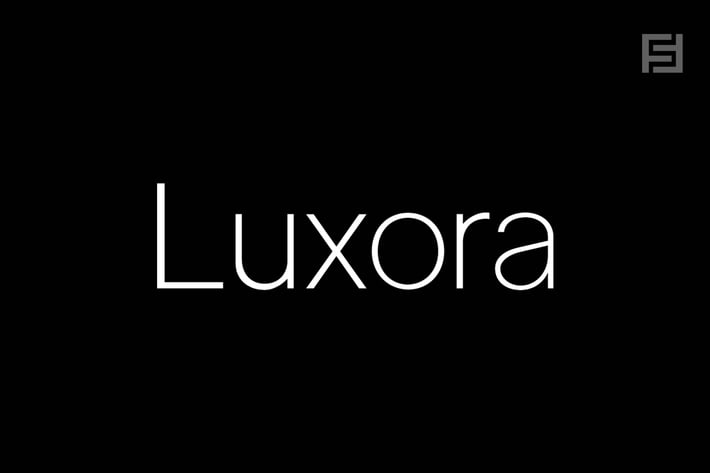
Luxora Grotesk - Clean & Minimalist Typeface
designova
Luxora Grotesk is a minimalist typeface with all the essential characteristics of a finest sans-serif typeface. Handcrafted and designed with powerful OpenType features in mind, each weight includes extended language support including Western European & Central European sets. A total of 329 glyphs are included.
Luxora Grotesk is a perfect choice for graphic design, text presentation, web design, print and display use. The typeface can be an amazing option for beautiful branding, logo / logotype design projects, marketing graphics, banners, posters, signage, corporate identities as well as for editorial design. Adding extra letter-spacing for the Caps will make this font perfect for minimal headlines and logotypes as shown in promo images here.
Luxora Grotesk typeface comes with a total of 14 fonts having 7 weights (Thin / Light / Book / Regular / Medium / Bold / Heavy as well as Italic versions of all weights. The pack contains OTF, TTF and Web Fonts (all EOT, SVG, WOFF included) as licensing options. HTML & CSS WebFont preset & demo is Included in the download pack.
Typeface designed by Jean at Designova, produced by Fontastica.